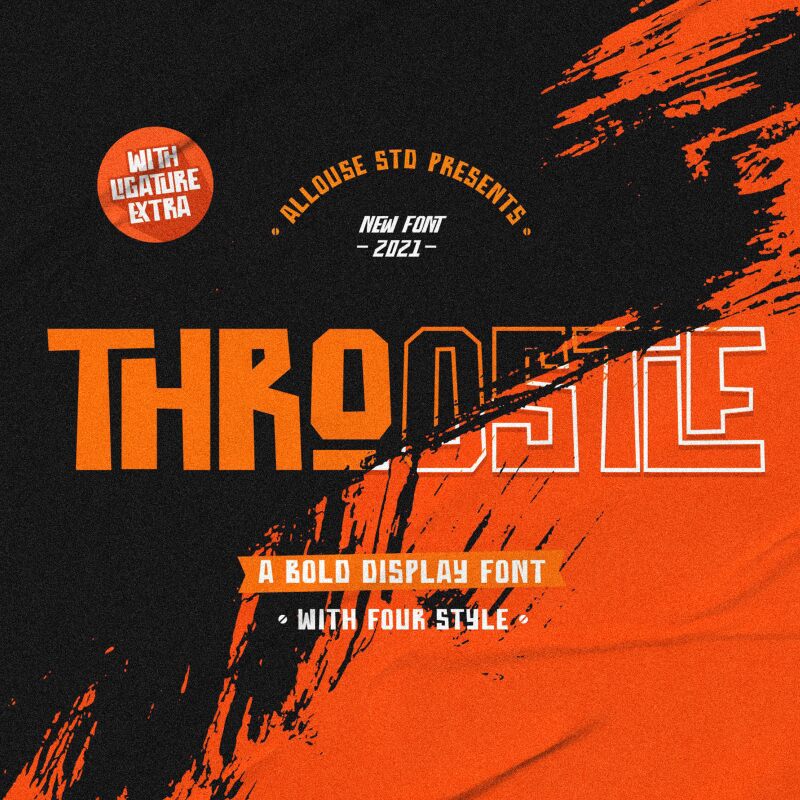
Throostle
Throostle is an edgy comic display font designed by Allouse.Studio. With its bold and narrow aesthetic, it's perfect for creating eye-catching logos, posters, and apparel designs with a unique edge.